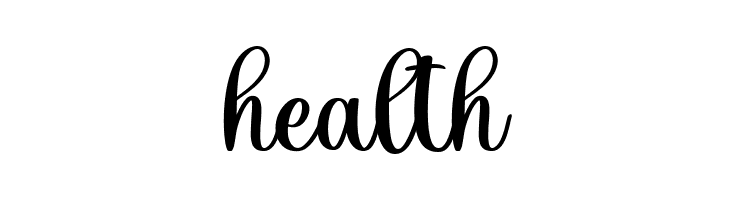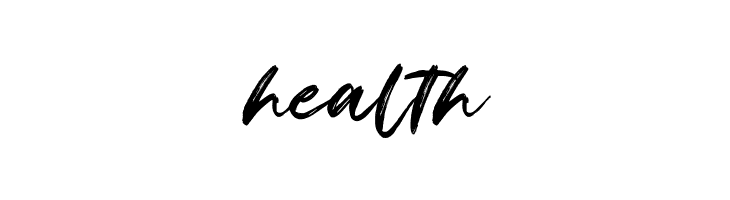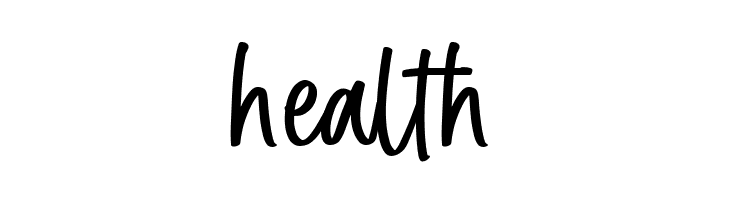
A delicate, flowing script font with elegant cursive letterforms.
A casual, handwritten font with fluid, connected strokes and a lively appearance.
A playful and elegant script font with flowing, cursive letterforms.
An elegant script font with flowing, cursive letters and a sophisticated flair.
A bold, expressive brush script font with dynamic, fluid strokes.
A playful, hand-drawn script font with a whimsical and informal style.
A whimsical and flowing script font with elegant, dynamic letterforms.
A dynamic handwritten font with fluid strokes and expressive character.
A bold, playful handwritten font with energetic strokes and a lively appearance.
A bold, expressive script font with flowing, cursive letterforms and high contrast strokes.